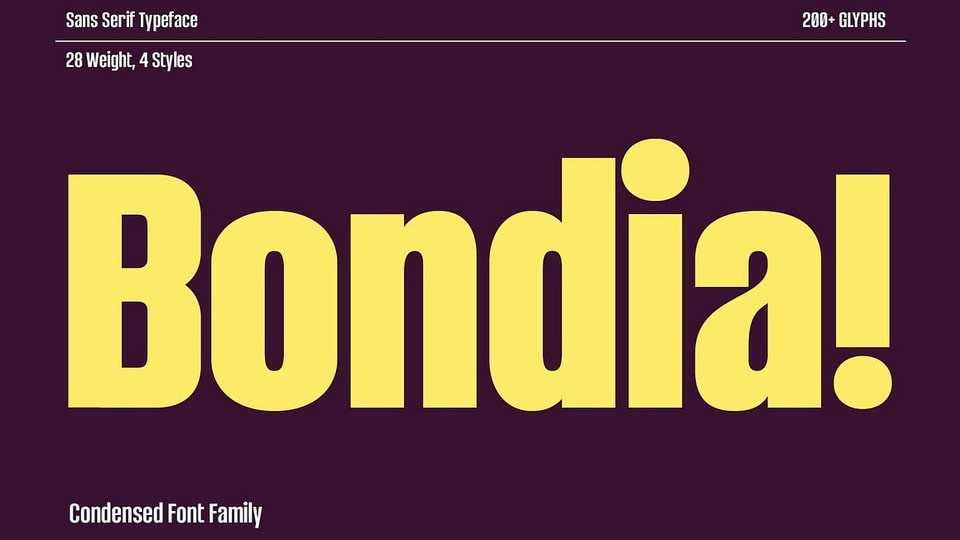
Download Bondia font, a fresh condensed sans serif typeface that merges elegance, strength, and modern appeal, designed for both impact and readability.